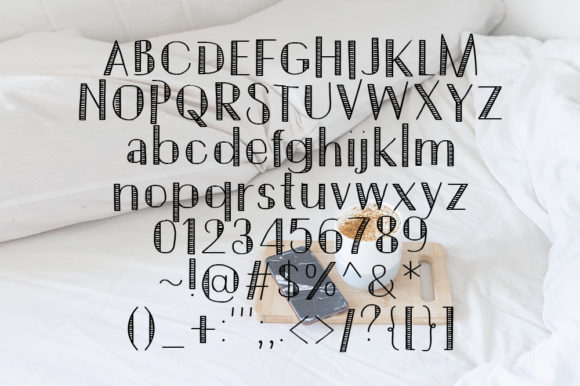
Introduction to Hompy Font
Remember the thrill of scribbling with crayons on a blank piece of paper as a kid? The unbridled joy of creating something entirely new and unique? As designers, we often yearn to recapture that sense of playfulness in our work, but it’s not always easy to find the right tools to bring out that creativity.
Enter the Hompy Font – a quirky, doodly font that’s sure to transport you back to a time when art was all about experimentation and imagination. With its unique, hand-drawn style, Hompy Font adds a touch of whimsy to any design project, making it a valuable resource for designers looking to inject some personality into their work.
Key Features of Hompy Font
• Unique, hand-drawn design perfect for creative projects and personal use.
• Comes in a single weight, making it easy to use in various design applications.
Honest Review: Hompy Font
I recently came across the Hompy Font and I have to say, it’s been a great addition to my design resources. The font itself is a unique and quirky addition to any creative project.
What works well is its high quality and flexibility. The font is available for free download and can be easily customized to fit any design style. The transparent background is a nice touch, allowing designers to easily place the text over any image or color.
• Unique and quirky design
• High quality and clear text
• Transparent background for easy customization
However, I do have a few limitations to mention. The font is not suitable for all types of projects, particularly those that require a more formal or traditional look. Additionally, the font’s quirkiness may not appeal to all designers.
Overall, I’m impressed with the Hompy Font and would definitely recommend it to designers working on creative projects. While it may not be suitable for all projects, it’s a great addition to any design resource library.
How to Use Hompy Font
Introduction to Hompy Font
Hompy Font is a high-quality, creative design resource that offers a unique and stylish font for your next project. This font is perfect for designers who want to add a touch of elegance and sophistication to their work. With a transparent background, you can easily customize and combine it with other design elements to create a cohesive look.
Tips for Getting the Most Out of Hompy Font
Common Use Cases for Hompy Font
Hompy Font is a versatile design resource that can be used in a variety of creative projects,